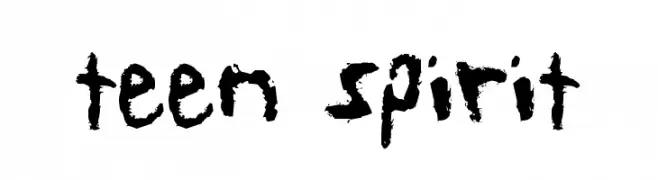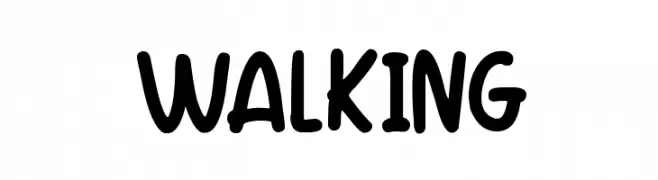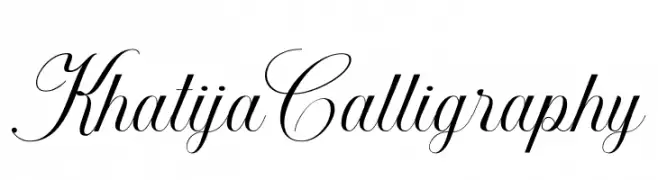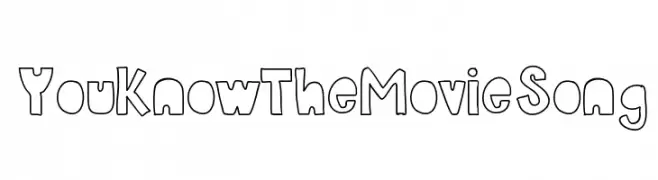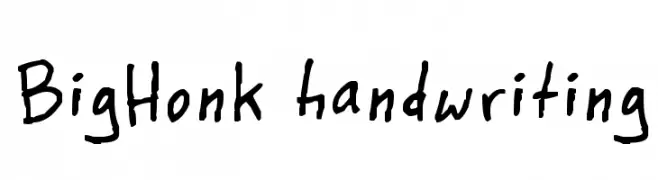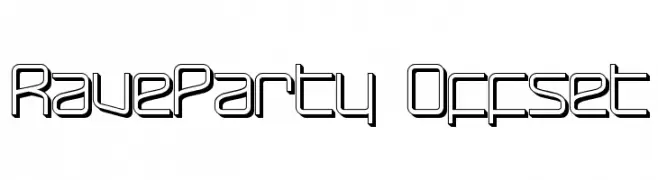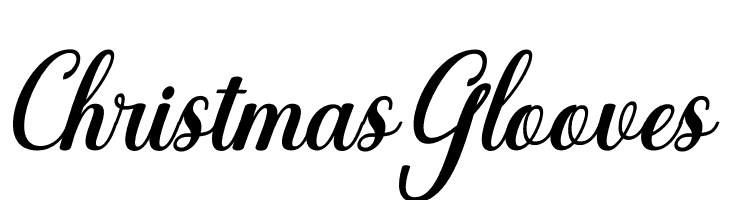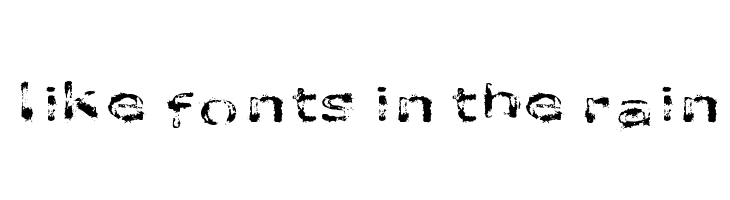
( Fonts by Micro Andi )
Bold, expressive handwritten font.
A playful, handwritten font with bold, rounded strokes and a casual vibe.
( Fonts by Emerald City Fontwerks )
A bold, grunge-style font with a hand-drawn, rebellious aesthetic.
( Darrell Flood )
A playful, bold font with rounded, hand-drawn characters.
An ornate, Gothic-inspired font with intricate details and dramatic flair.
A sophisticated calligraphy font with elegant, flowing strokes and decorative flourishes.
A playful, casual handwritten font with irregular strokes.
( Fonts by Graham Meade - GemFonts )
A modern, futuristic font with a double-line offset design and geometric shapes.
( Fonts by Khurasan )
A playful, rounded handwritten font with smooth curves and consistent stroke width.